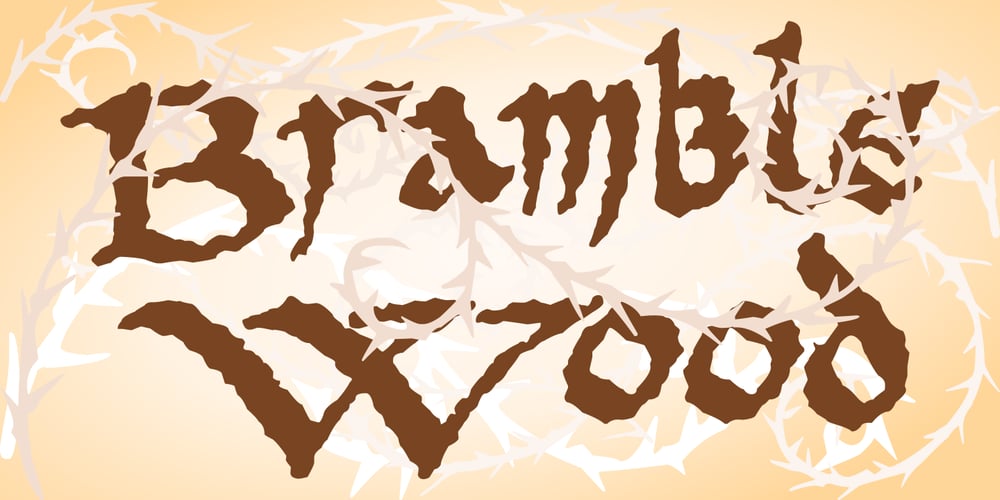
PR Bramble Wood 1 Font Family was designed by Peter Rempel and published by PR Fonts. PR Bramble Wood 1 contains 1 styles and family package options. This font is a collection of spiraling vines with thorns. This can be suitable for themes where beauty is combined with suffering. Adjacent letters will provide left and right versions of the same design, and shift will access the inverted version. Combines well with: PR Bramble Wood 2, PR Hallow Doodles 01, PR Hallow Doodles 02, PR Cauldron, PR Swirlies 01, PR Swirlies 05.